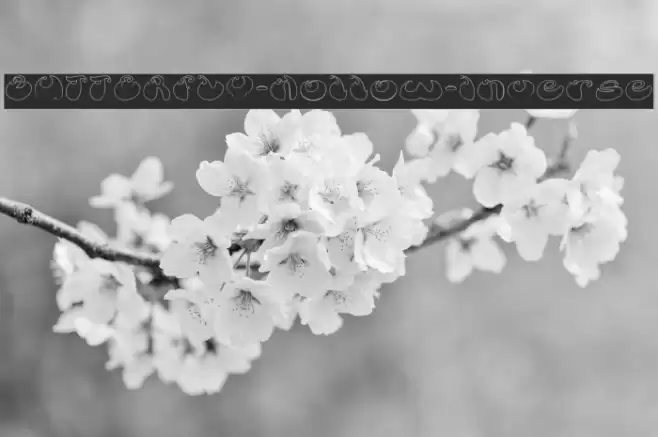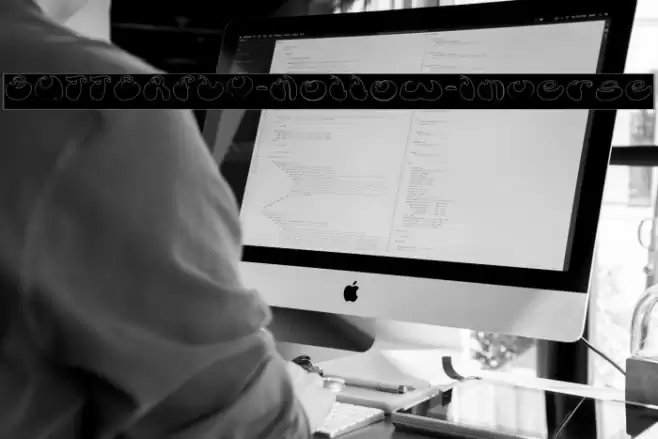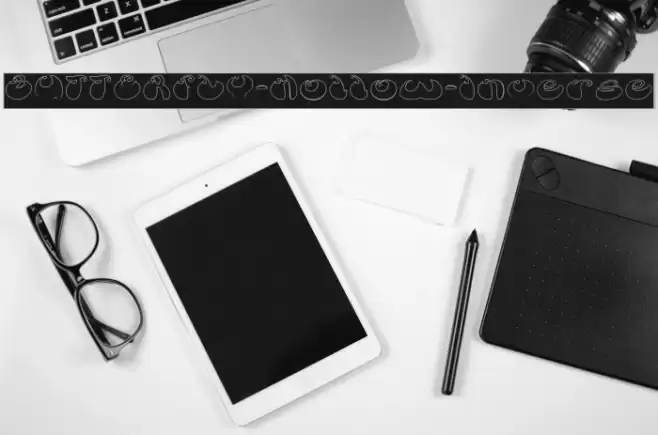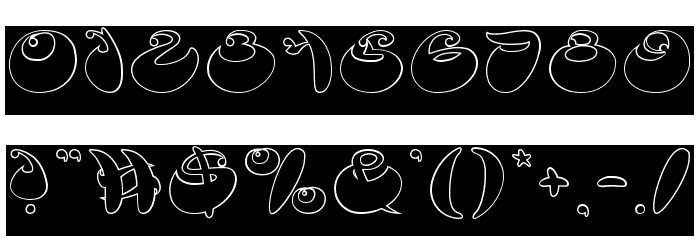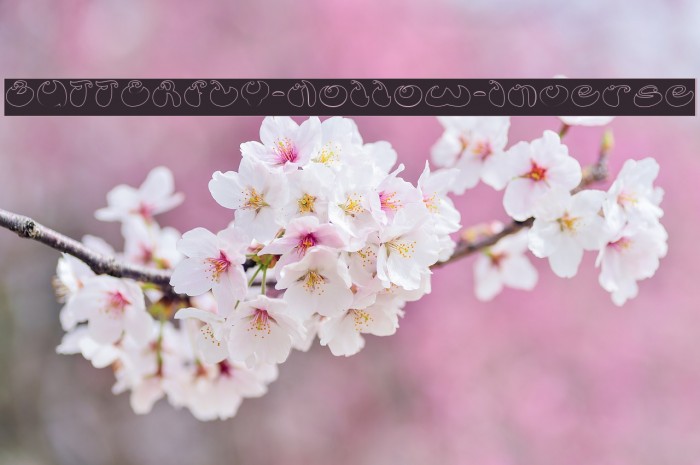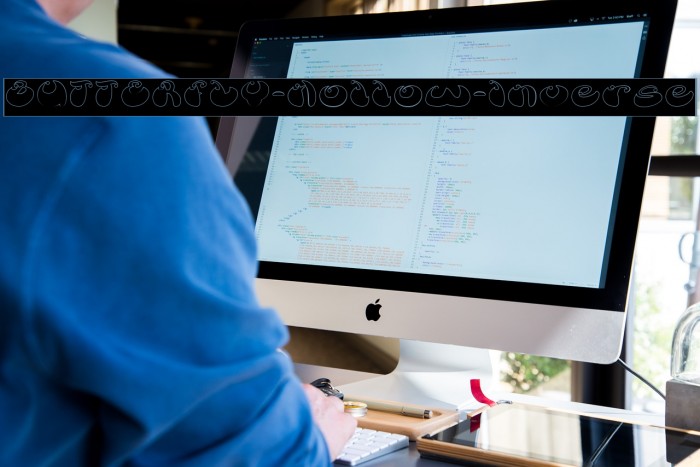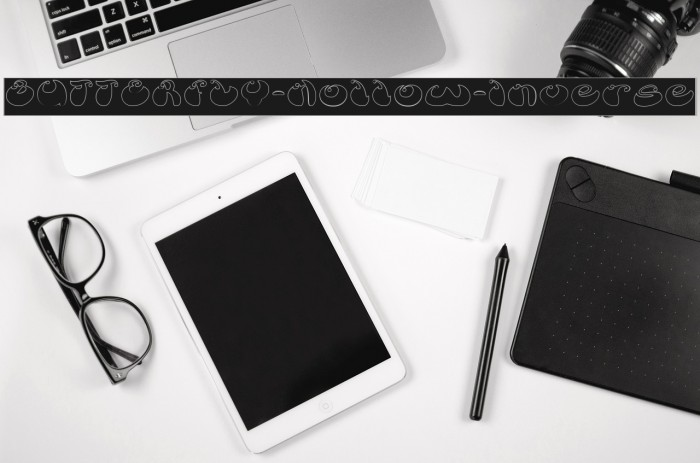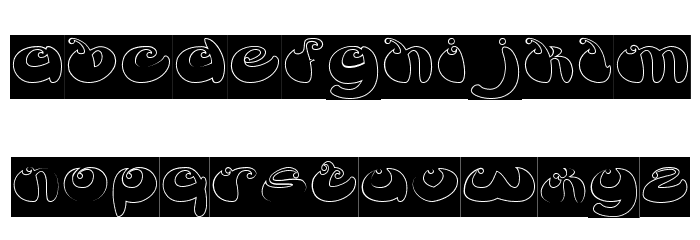
BUTTERFLY-Hollow-Inverse Font
BUTTERFLY-Hollow-Inverse Description
This font features a playful and whimsical design with hollow, inverse letterforms that create a unique visual effect. The characters are rounded and bulbous, giving them a soft, friendly appearance. The strokes are consistent in width, contributing to a cohesive look across all characters. The uppercase and lowercase letters maintain a similar style, with the lowercase being slightly more compact. Numbers and special characters follow the same design principles, ensuring uniformity. This font's distinct style makes it stand out, ideal for creative and artistic projects.
A playful, hollow, and rounded font with a whimsical style from Uncategorized fonts.
- Proposed Projects: Ideal for children's books, playful branding, creative posters, and artistic projects.
- Overall Style: Whimsical and playful
- Use Case: Logos, Posters, Creative projects